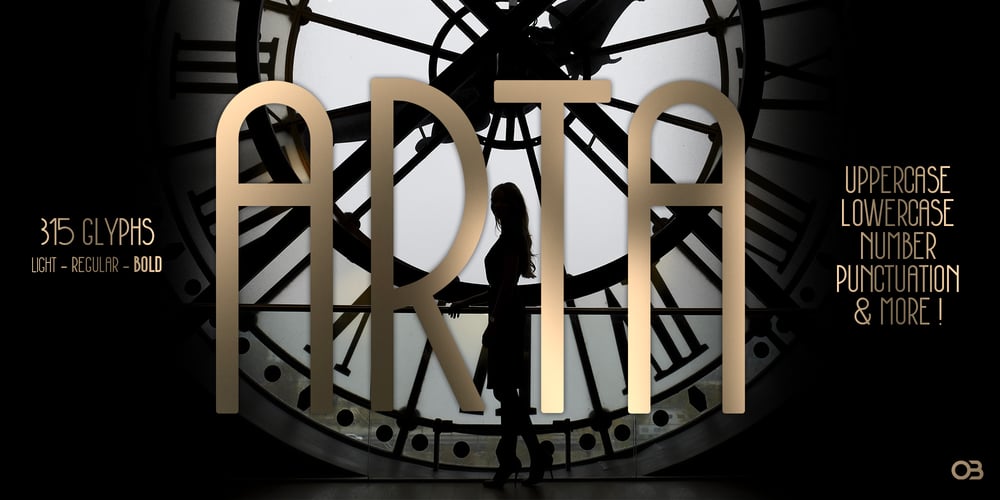
Arta Font Family was designed by Olivier Blanc and published by Olivier Blanc. Arta contains 3 styles and family package options. ARTA is an ArtDeco style font, inspired by classic font like Newport Classic with elongated typeface with high waisted uppercase letters which curve in an geometric and elegant way.It consisted of really condensed lettering which had little space available.It’s a well complet font with 315 Glyphs for most latin languages as “English, French, Spanish, German, Icelandic, Afrikaans, Catalan, Czech, Esperanto, Hungarian, Latin, Latvian, Lithuanian, Maltese, Northern Sami, Polish, Serbo-Croatian, Slovak, Slovene, Sorbian, Turkish and Welsh”.ARTA will give to your design an chic presentation, you will be able to generate beautiful writings,thanks to 3 differents type “Light, Regular & Bold”. It can be used for Shop, Restaurant, Jewelry, Cosmetic, Press identity & more.I started to work on this typeface at the creation of a logo in 2017 for the butcher shop of my uncle in Luchon in France named “Le Louchébem”.I always had in mind to complete & share it. So after some years, I decided that it was time to finish it. This was my first Typography creation and I wanted to make it as an Art Deco typeface. I really love this elegant, high & classy lettering style. I want to bring this 1910’s vibes back to be more use in our days.